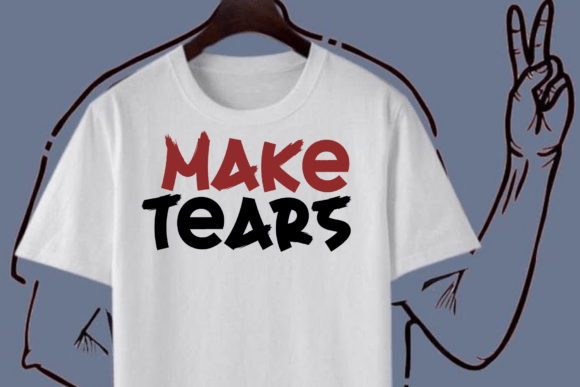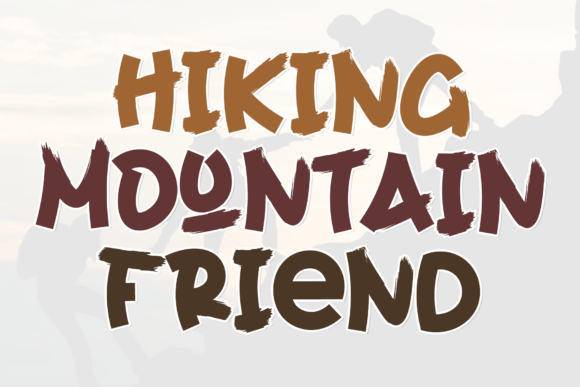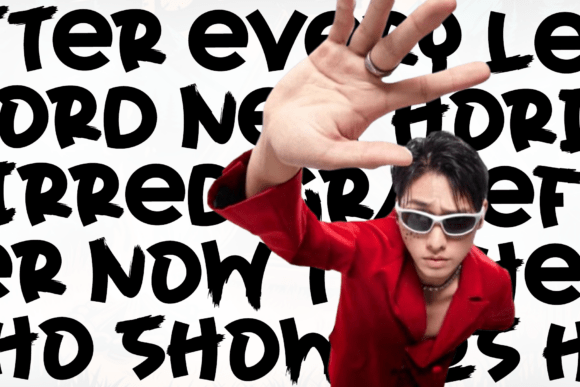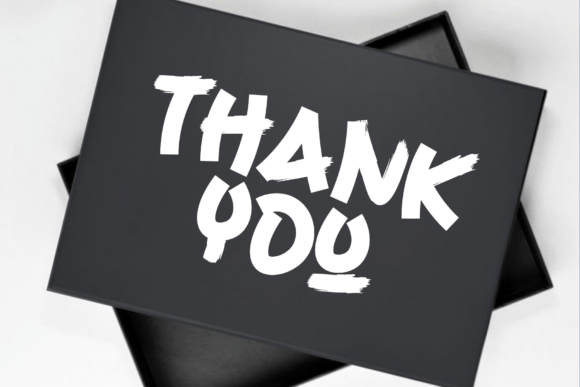
The Anime Justice Font: A Timeless Choice for Creative Designs
Have you ever been in the middle of a design project, pouring your heart and soul into it, only to get stuck on one thing: the font? I certainly have! It was during one of those moments, working on a branding project for a client who wanted something unique and eye-catching, that I stumbled upon the Anime Justice font. And let me tell you, it was love at first sight! ✨
Anime Justice is a lovely and timeless handwritten font that has become a staple in my design toolkit. Its unique and beautiful touch makes every letter come alive, perfect for creating stunning logos, branding materials, and quotes. In this article, I’ll share my honest review of the font, provide a practical guide on how to use it, and explore similar fonts and alternatives.
- ✨ Unique and beautiful handwritten style
- ✅ Perfect for logos, branding, and quotes
- ✅ Easy to read and understand
- ✅ Highly versatile for various design projects
While Anime Justice is an amazing font, there are a few things to keep in mind: 🤔
- ⚠️ Limited availability of stylistic alternates
- ⚠️ May not be suitable for very long texts or body copy
The Story Behind Anime Justice
While the origins of Anime Justice are unclear, it’s likely that the font was inspired by the world of Japanese anime and manga. The creator may have been a fan of the genre and wanted to capture its essence in a font that’s both playful and elegant.
| Author | Sansana |
Q: What type of designs is Anime Justice best suited for?
A: Anime Justice is perfect for creating eye-catching logos, branding materials, and quotes. Its unique and beautiful touch makes it a great choice for designs that require a personal and creative touch.
Q: Is Anime Justice a difficult font to read?
A: No, Anime Justice is generally easy to read and understand. Its clear and legible design makes it perfect for designs that require a personal touch without sacrificing readability.